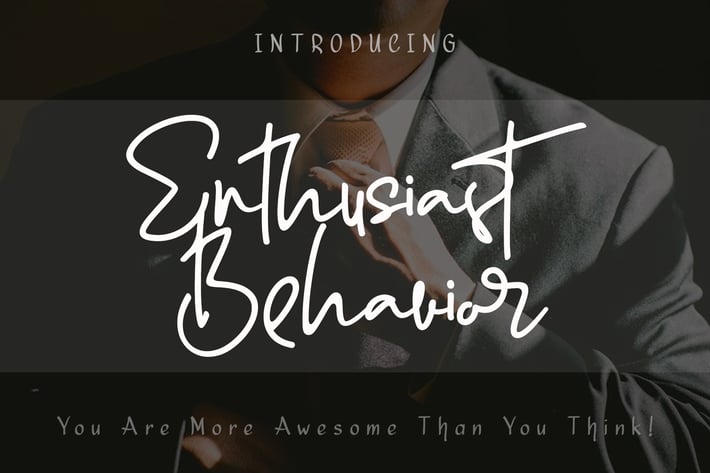
Enthusiast Behavior - Stylish Signature Font
Enthusiast Behavior is a font with simple and classy taste, comes with Elegant Beginning and Ending tails (Swash & Titling), also has opentype features such as ligatures. We keep this font looks classy, readable, elegant, stylish, catchy and absolutly easy to use.
Enthusiast Behavior is the great choice for watermark on photography, signature or signature logo design, album cover, business card, quotes, and many other design project.
Stylish handwritten style
Special Ligatures
Special Swash (Beginning Tails)
Special Titling (Ending Tails)